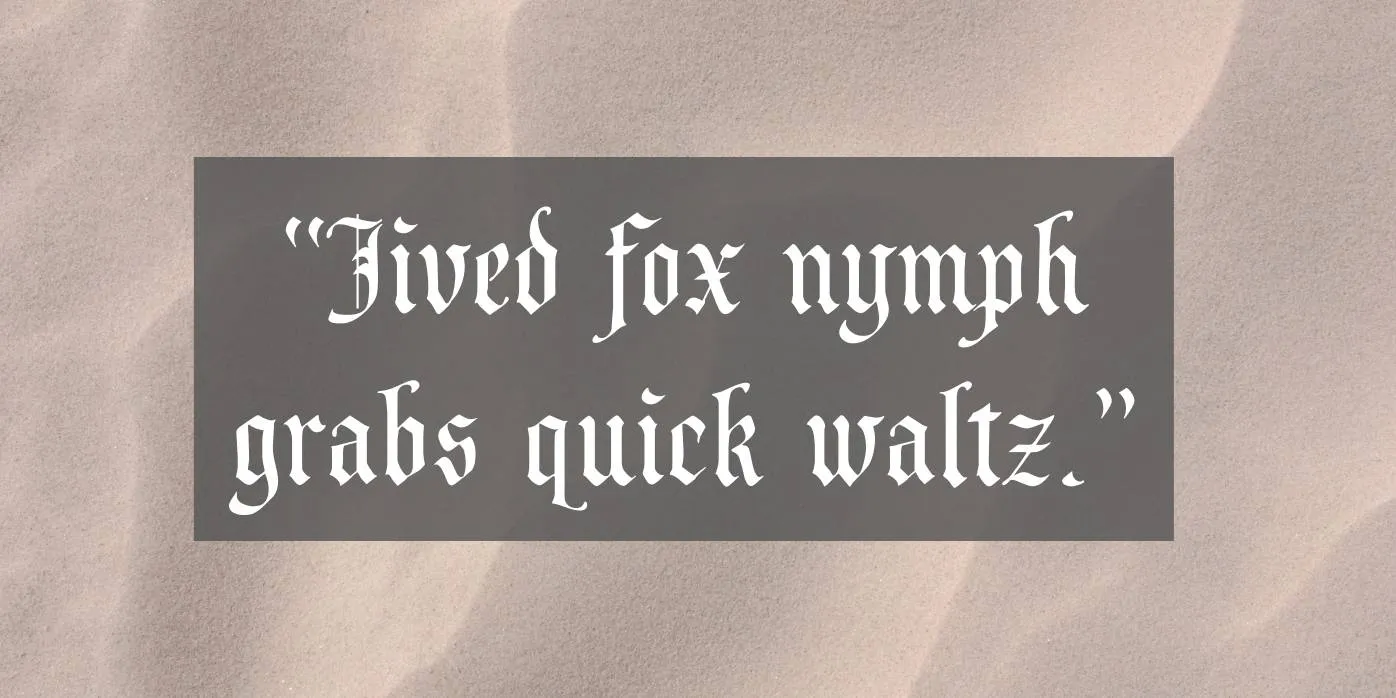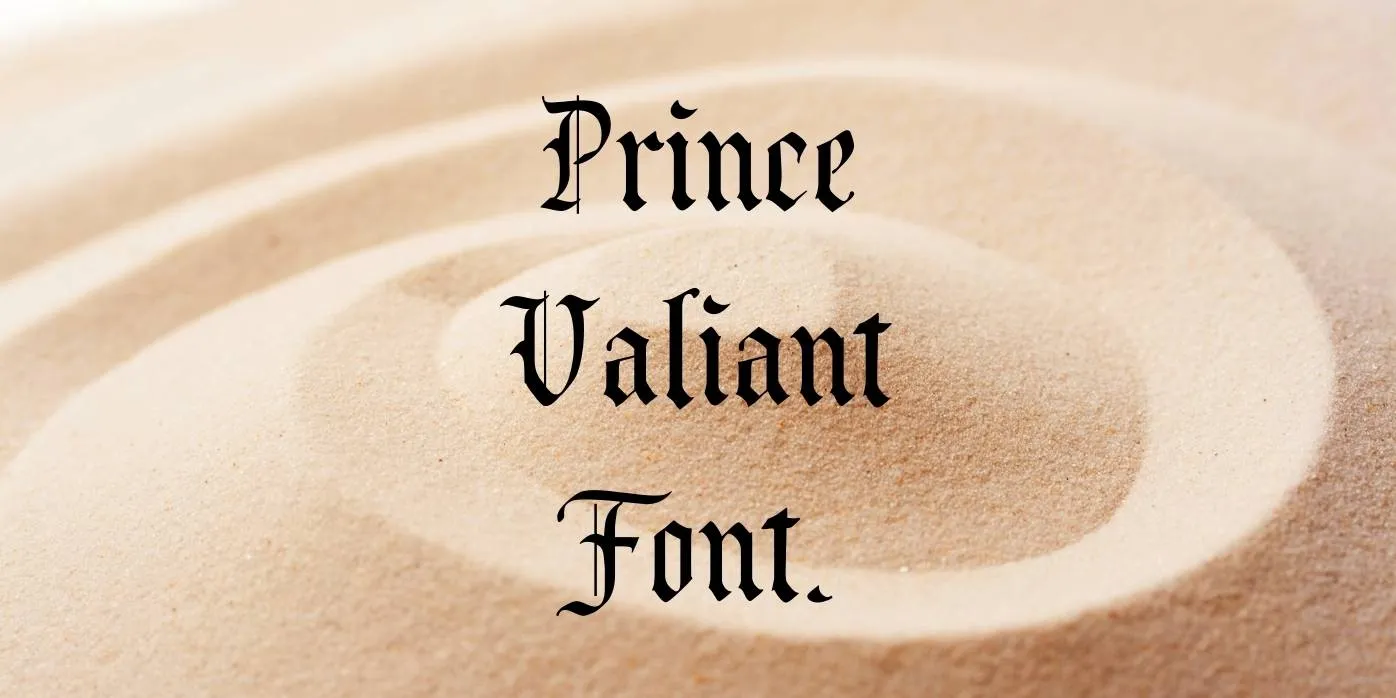
Prince Valiant Font
Prince Valiant Font is developed by a very famous Dieter Steffmann. This typeface belongs to the Gothic typefaces and has a very prince-like look. This font family consists of 4 weights, each with an italic version. This stylish font family is available in OpenType format with an extended character set.
This typeface supports more than 190 languages. Because of this reason, it is famous all over the world. This typeface comes in different styles. This typeface is best for many designing APPS.
Norwester Font is very alternative to this cute typeface. It gives an exclusive look to any text or document. The letters are very recognizable and the font is perfect for texts that need to be stand out. This typeface can be used all over the world without any changes.
The typeface looks great for various designs. This typeface has extra advanced keen features.  This Font is one of the most important aspects of design. Many graphics designers get an edge by its generator tool in their various graphics plans.